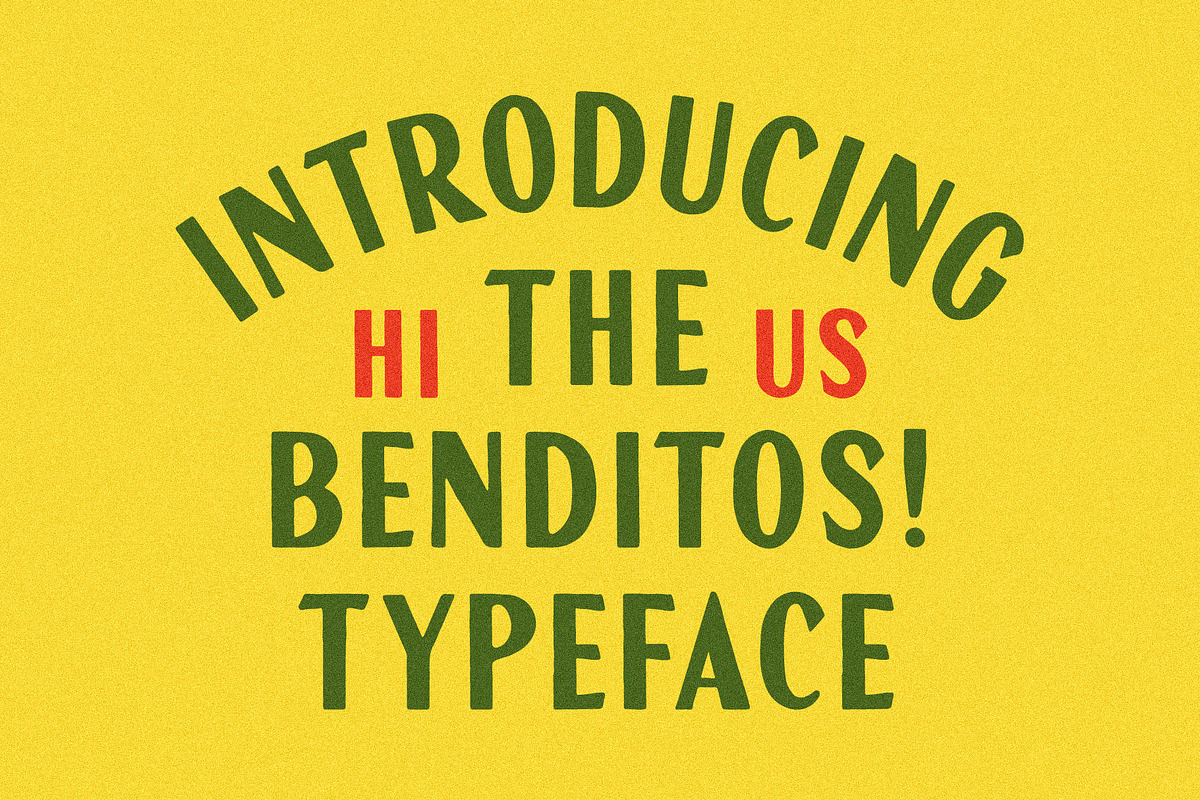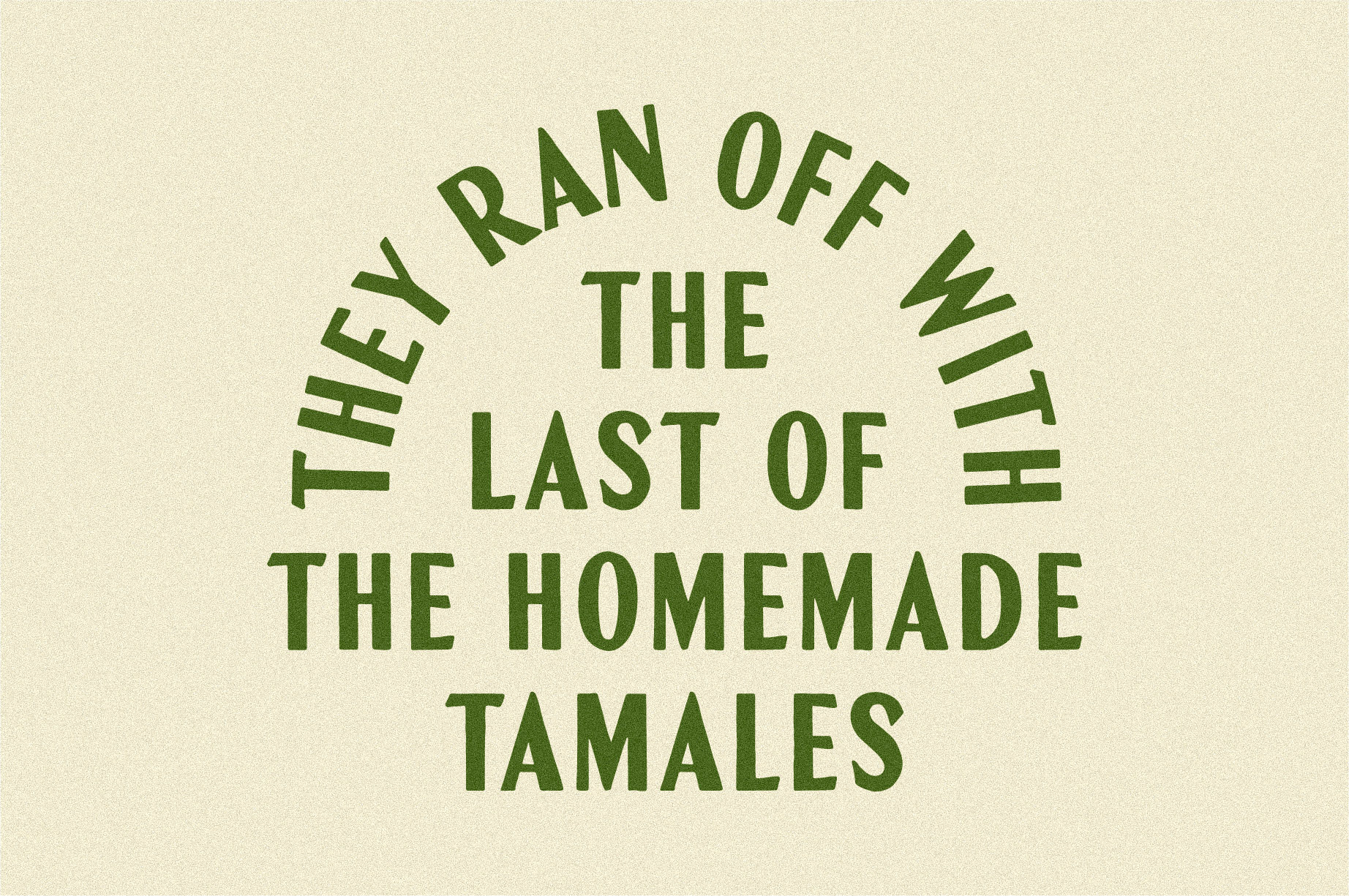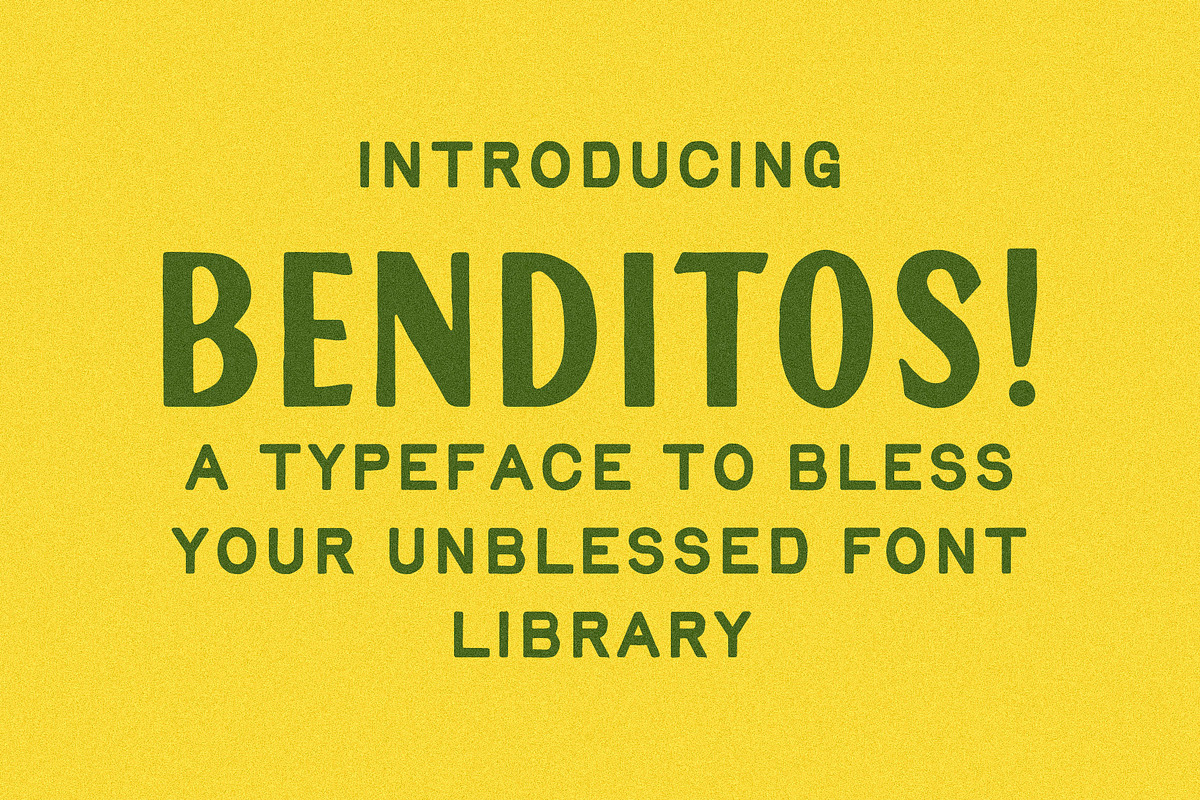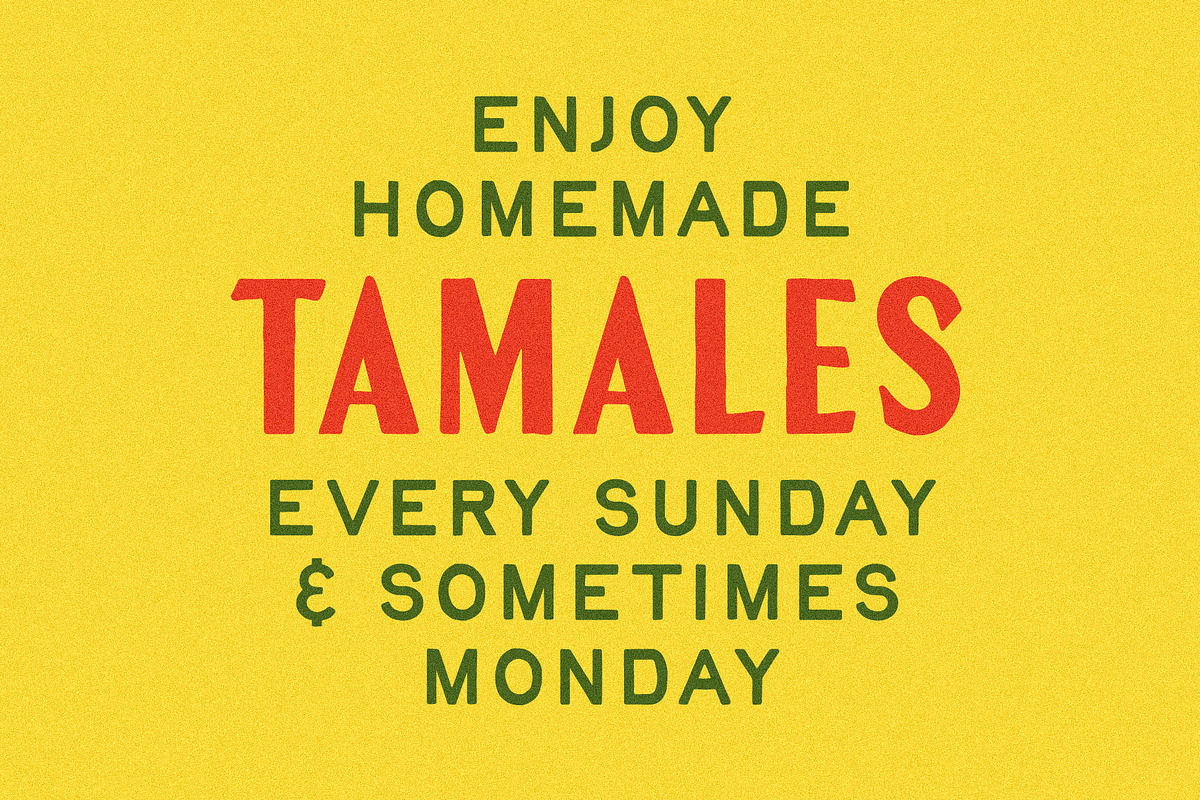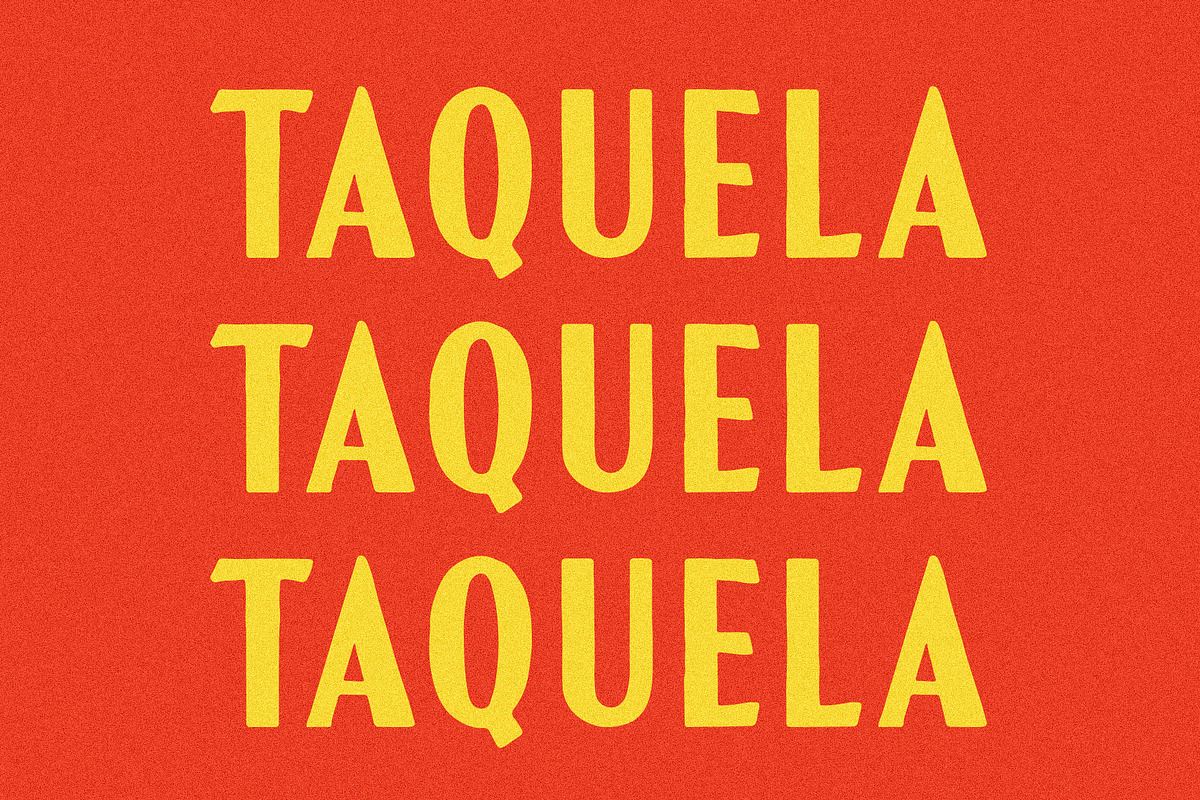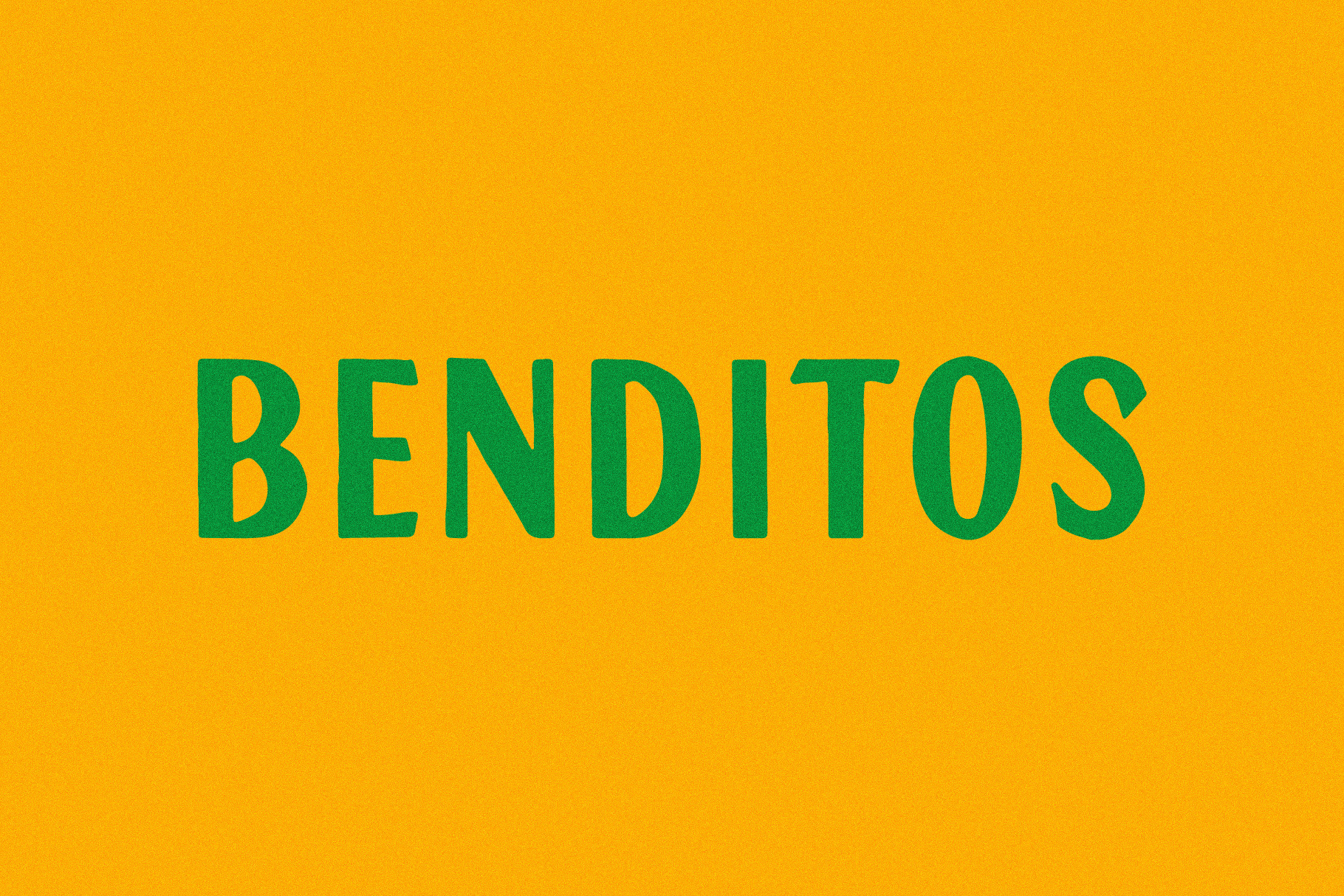
Benditos Typeface
Benditos is one of the few pre-blessed fonts you can legally download.
Inspired by vintage hotel matchbooks, it balances old-school charm with a structure that actually holds up today. A little retro, a little modern, and built for the kind of project that could use a little divine intervention.